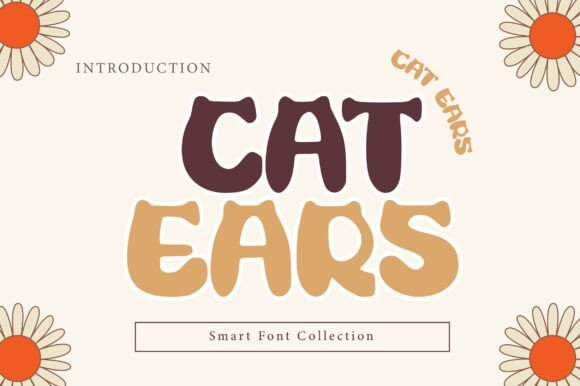
Get Ready to Purr-fect Your Typography
As a designer, have you ever stared at a blank page, wondering how to bring a playful touch to your next project? We’ve all been there. Sometimes, all it takes is the right font to spark inspiration. For those looking to add a dash of whimsy and fun to their designs, we’re excited to introduce you to the Cat Ears Font – a charming, rounded display font that’s sure to capture the hearts of kids and adults alike.
This adorable font is perfect for designers seeking to create a lighthearted and engaging atmosphere in their work. With its bold, bubbly letterforms and smooth curves, Cat Ears Font is ideal for a variety of projects, from children’s book covers to social media posts. Whether you’re working on a kid-friendly design or a kawaii-themed project, this font is sure to bring a lovable touch to your typography.
Cat Ears Font Key Features
- Unique Characteristics: The font features adorable cat ear designs that can be adjusted to suit different moods and emotions, adding a playful touch to any design.
Cat Ears Font Review
As a designer, I’ve had the chance to work with many quirky fonts, but Cat Ears Font takes the cake. It’s a delightful, hand-drawn font that’s perfect for adding a touch of whimsy to your designs. ✨ The font’s bold lines, playful curves, and adorable cat ears make it a standout choice for projects that need a bit of personality.
Here are some of the things I love about Cat Ears Font:
- ✨ Unique and playful design that’s sure to grab attention
- ✨ Perfect for projects that need a touch of whimsy or nostalgia
- ✨ Available in a range of weights and styles to suit your design needs
Of course, no font is perfect, and Cat Ears Font has its limitations:
- ⚠️ Limited legibility at smaller font sizes, making it best suited for headings and titles
- ⚠️ May not be the best choice for formal or professional projects
Overall, I’m a big fan of Cat Ears Font. It’s a fun and creative choice that’s sure to add some personality to your designs. Just be mindful of its limitations, and you’ll be purr-fectly happy with the results.
Use the Cat Ears Font to add a playful touch to your designs, especially in kid-friendly or whimsical contexts. Experiment with different font sizes, colors, and styles to achieve the desired effect. You can also combine the Cat Ears Font with other fonts to create a unique and eye-catching look.